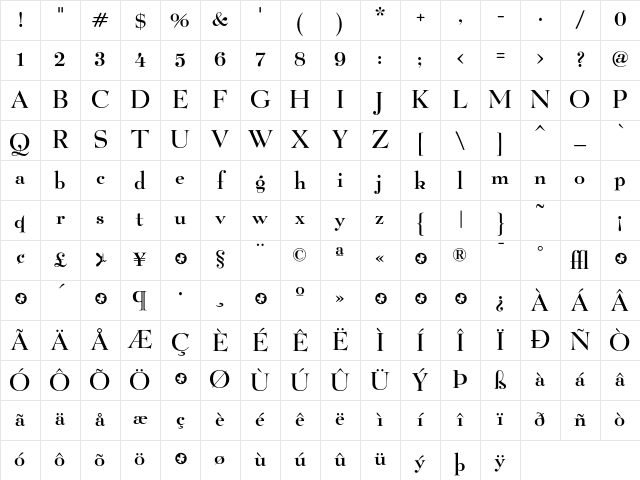
Belucian DemiBold
Style: DemiBold
Design Context for Belucian
Belucian is a composed and adaptable typeface that performs quietly and consistently across a wide range of design contexts. Its bold stroke weight gives it real presence on the page.